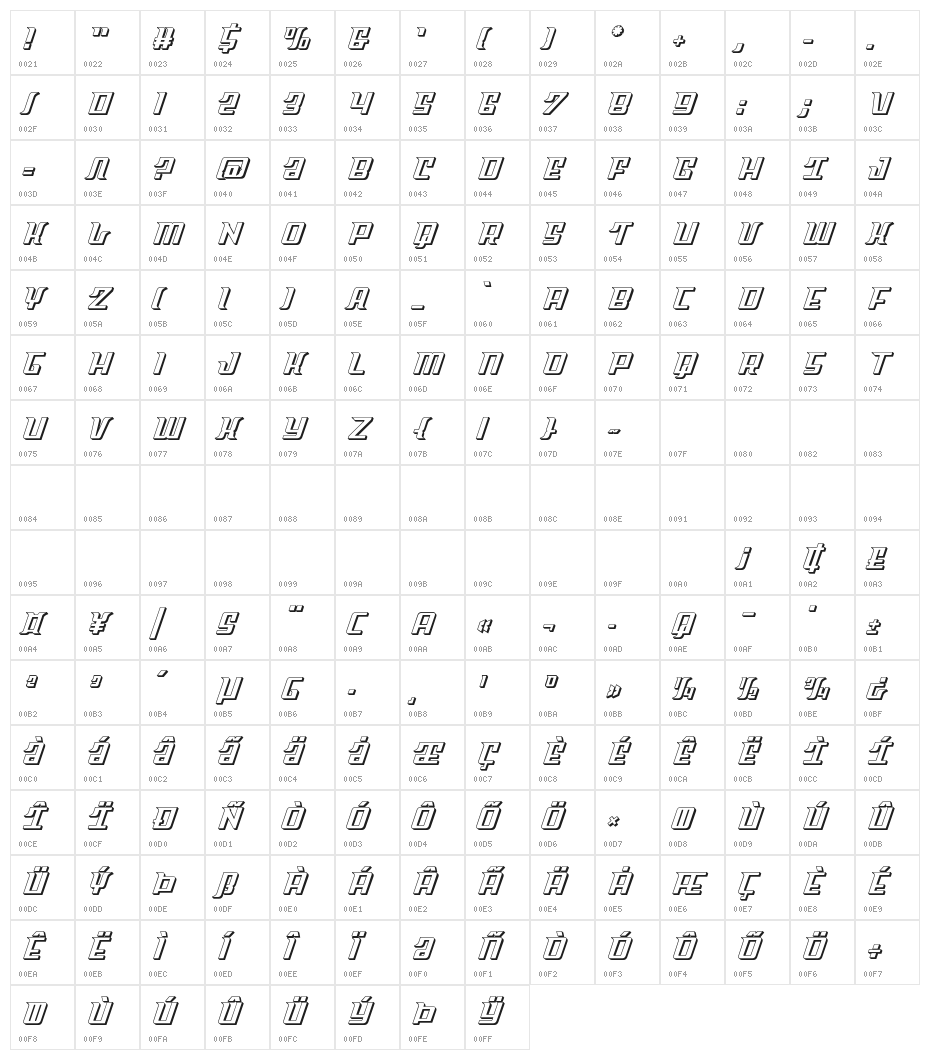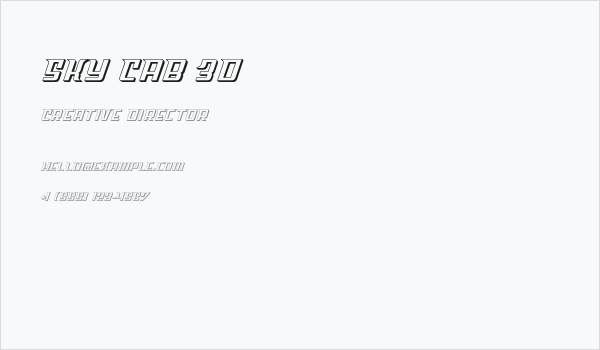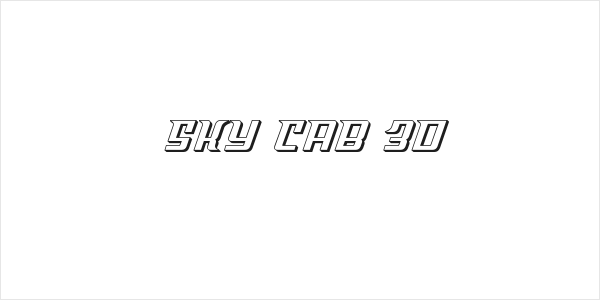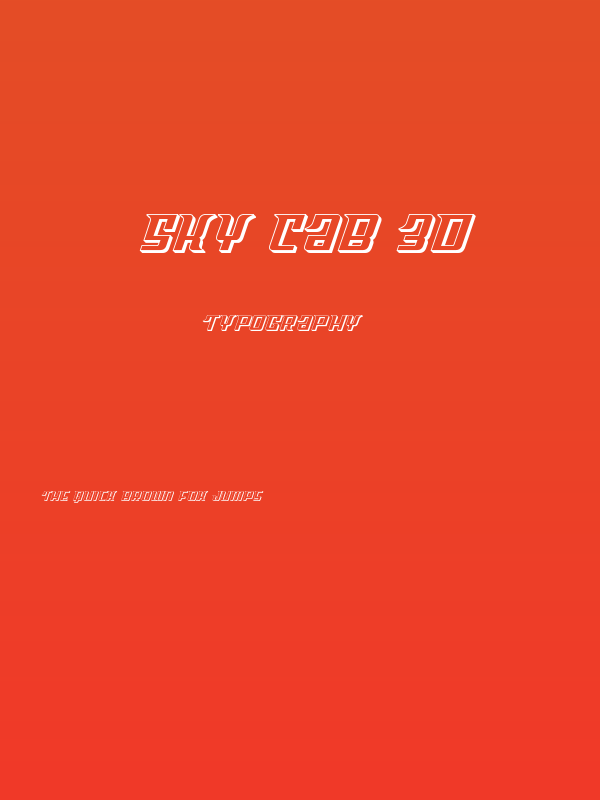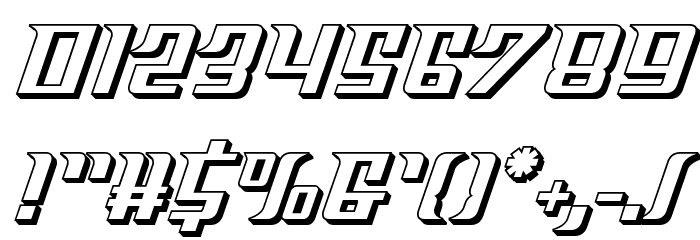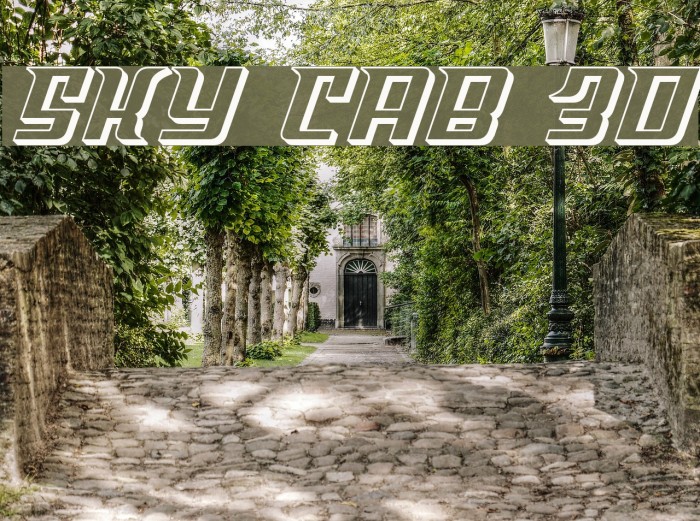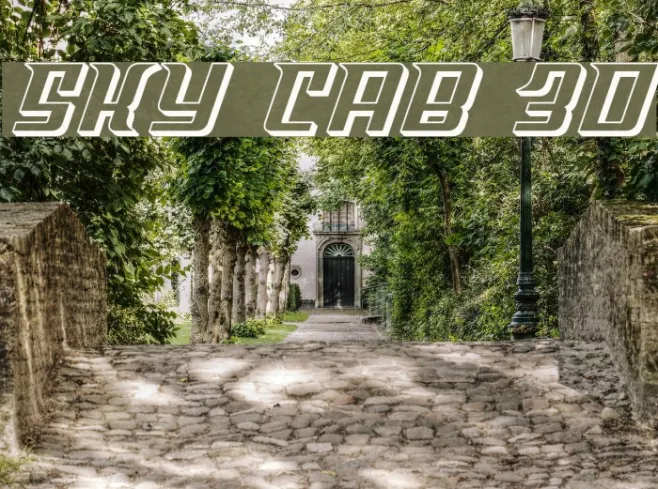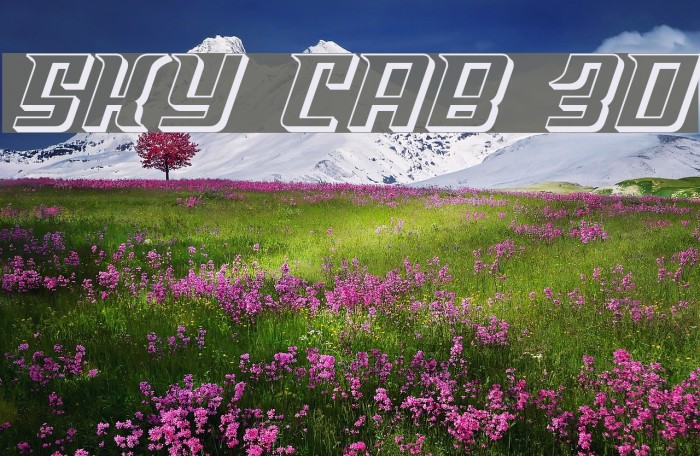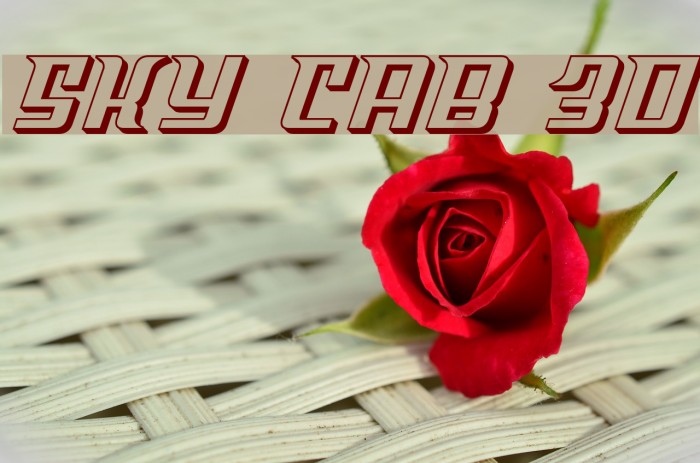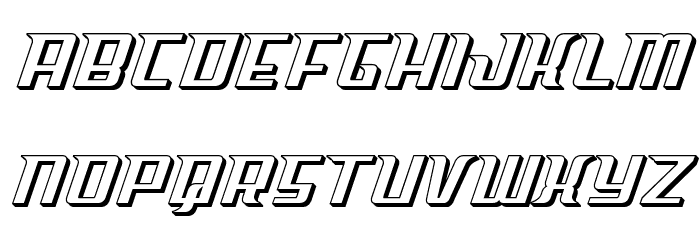
Sky Cab 3D Font
Sky Cab 3D Description
This font features a bold, three-dimensional design with a futuristic and dynamic appearance. The letters are outlined with a shadow effect that gives them a sense of depth and movement. The angular and geometric shapes of the characters contribute to a modern and edgy aesthetic. Each letter is distinct, with sharp edges and a consistent stroke width that maintains readability while adding a unique style. The numbers and special characters follow the same design principles, ensuring a cohesive look across all elements.
| Proposed Projects | Ideal for projects that require a modern and eye-catching design, such as video game titles, tech branding, or sci-fi themed posters. |